The 90s were a time of bold expressions, vibrant colors, and eclectic design trends. Whether you’re a designer looking to add a retro vibe to your work or feel nostalgic, 90s fonts are the perfect way to infuse your projects with that classic flair.
Here’s a list of 20 iconic 90s fonts that will take you back to a playful yet stylish design era.
1. Standie
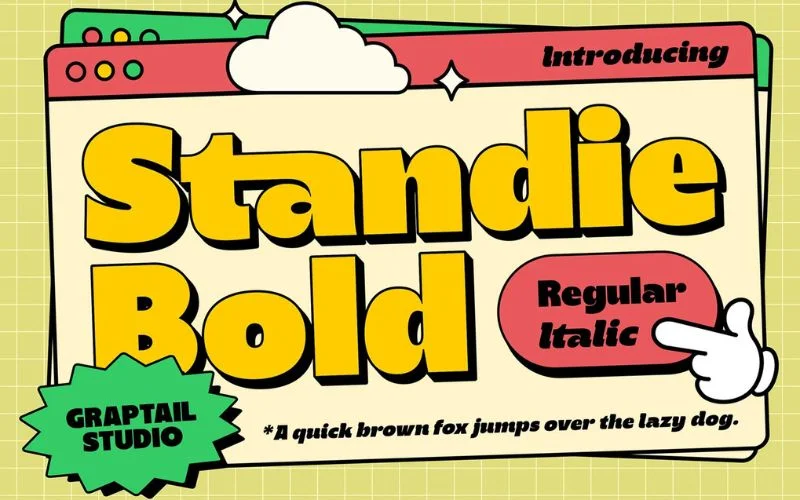
When it comes to 90’s typography, Standie is a top choice. This 90s font features thick, solid letters with a strong visual impact. The blocky, confident look of Standie is reminiscent of the retro typography used in 90s advertisements and movie posters.
Its boldness gives your text a sense of importance, making it ideal for headings and titles that need attention. If you’re looking for a font that blends the classic vibes of the 90s with modern-day versatility, Standie won’t disappoint.
2. Retrio OTF-SVG Color Font Family
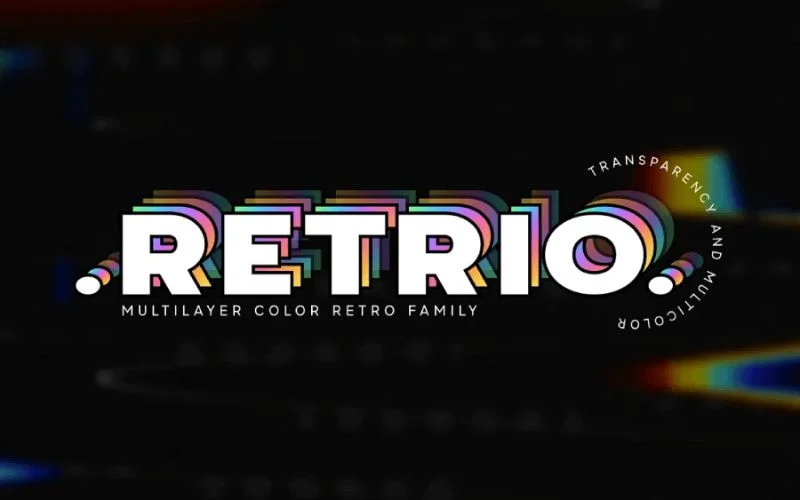
The Retrio OTF-SVG Color Font Family is a colorful homage to the playful, experimental designs of the 90s. Known for its vibrant hues and bold character shapes, this 90s font family is perfect for adding color to your projects.
The font’s multicolored design makes it especially appealing for posters, web banners, and social media graphics where you need to capture attention at first glance. In the 90s, color was a huge part of design, often used loudly and unapologetically. Retrio brings that same energy and enthusiasm to any design.
3. Block Marys: 90s Graffiti Font
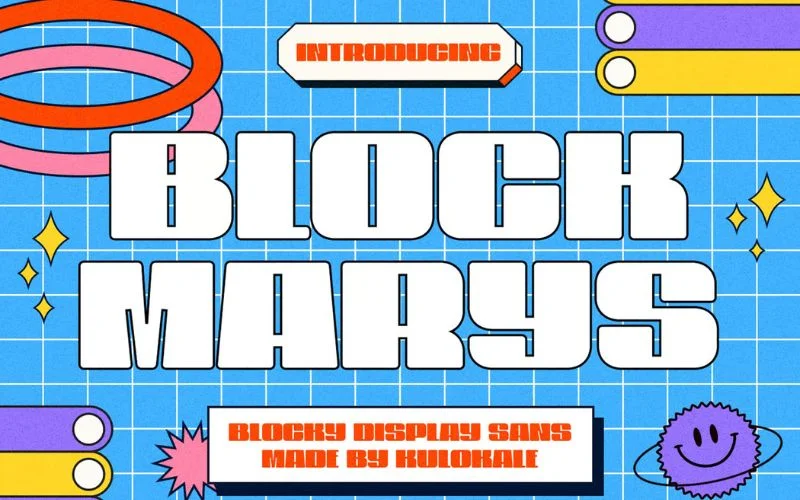
Block Marys is the quintessential bold, blocky typeface that dominated much of 90s urban design. This heavy-set font is perfect for those looking to recreate the graffiti-like, street-inspired typography that was everywhere in that decade.
The sharp, geometric structure of Block Marys makes it excellent for titles, branding, and even logos. It provides a gritty, raw feeling reminiscent of street culture, which became synonymous with 90s fonts.
4. Retro Chimps: 90s Vintage Font
Retro Chimps Vintage brings a sense of fun and nostalgia to any design project. Its rounded letters and playful style evoke the more lighthearted side of 90s fonts. This font is an excellent fit for designs that need a cheerful, vintage vibe, whether you’re working on a flyer, social media post, or packaging design.
Its whimsical look is reminiscent of the hand-drawn type often seen in 90s TV shows, cartoons, and video games. What makes Retro Chimps Vintage special is its versatility. It has just enough retro flair to feel nostalgic, clean, and modern for contemporary use.
5. Bee Dee Groovy
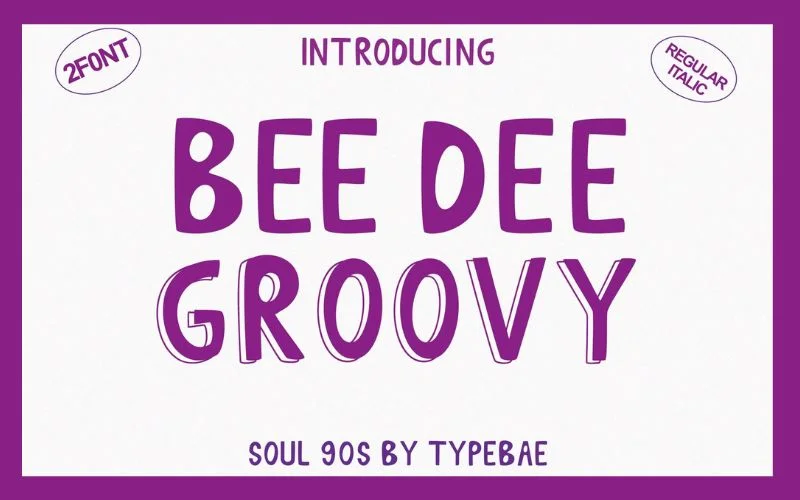
Bee Dee Groovy is a bold, retro-inspired display font that captures the essence of the 80s and 90s. This typeface brings a nostalgic and distinctive flair to various creative projects.
Whether you’re designing business cards, children’s activity books, or anything in between, Bee Dee Groovy infuses your work with a unique, vintage charm that truly stands out.
6. Ashington: 90s Cursive Font
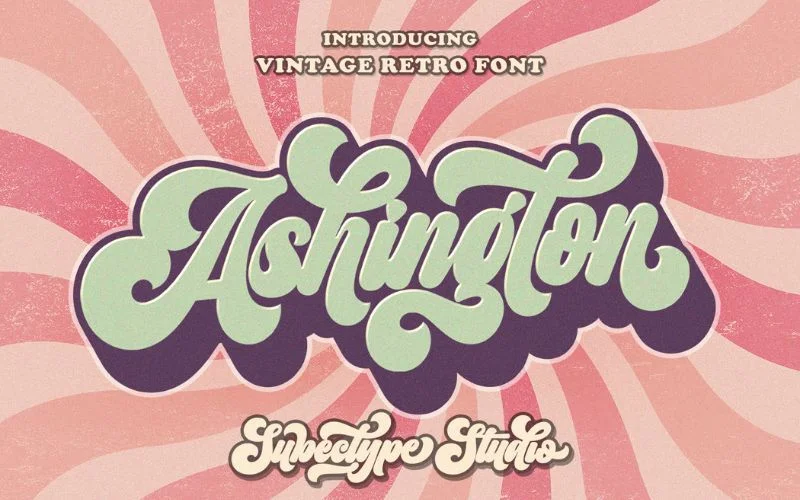
Ashington is the perfect choice for those looking to add an elegant touch to their retro designs. Unlike this list’s bold and blocky 90s fonts, Ashington offers a cursive, flowing style that feels a bit more refined.
However, it still carries the playful and carefree essence that was prominent during the 90s. Its delicate, handwritten style is ideal for creating designs that need a vintage, nostalgic feel but with a softer edge. Ashington blends the best of both worlds, bringing a touch of class to the otherwise bold and edgy world of 90s fonts.
7. Milenia Bold Script: 90s Aesthetic Font
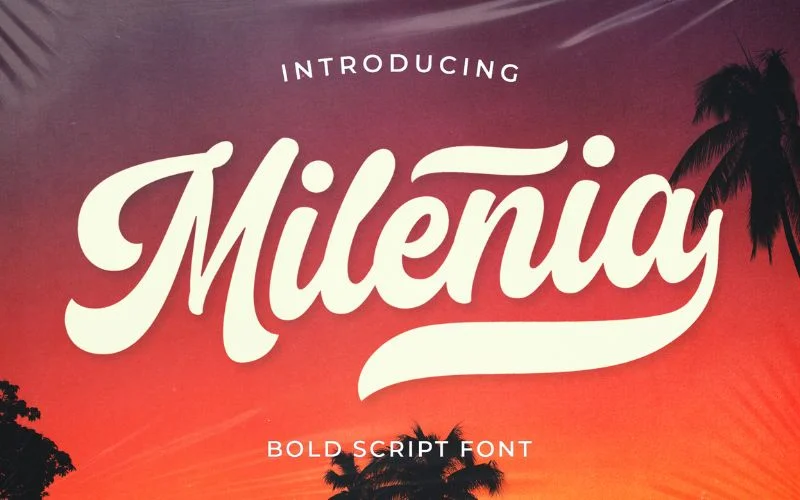
Milenia Bold Script captures the dynamic energy of 90s fonts with strong, flowing strokes. This script font is bold enough to demand attention, yet it has a certain elegance that makes it perfect for various creative applications.
The thick lines and sweeping curves make Milenia ideal for eye-catching designs, such as posters, branding, or packaging. The 90s were full of chunky, oversized fonts, and Milenia Bold Script brings that retro vibe into modern designs without feeling dated. This is an excellent choice for your next project if you’re after a script font that combines nostalgic charm with contemporary appeal.
You might also like: Free Luxury Fonts To Elevate Your Designs
8. Retro Boldy
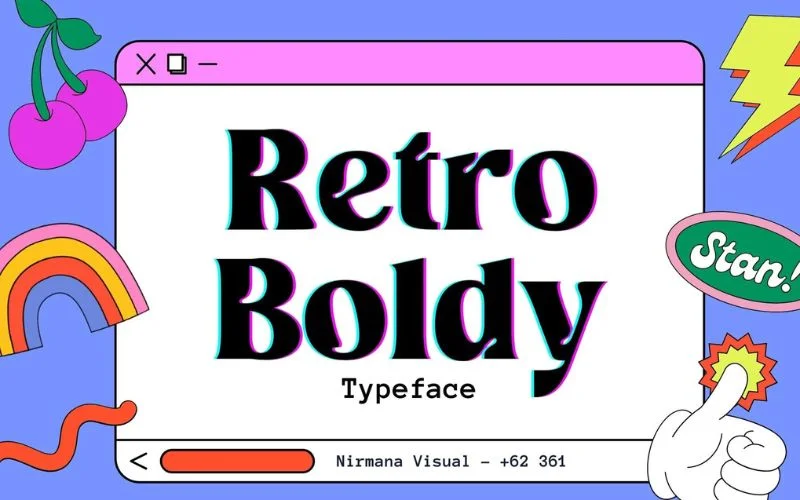
Retro Boldy lives up to its name with its thick, blocky letters that seem to leap off the page. This 90s font takes inspiration from the oversized, impactful typography commonly seen on 90s movie posters, product packaging, and neon signs.
The font’s exaggerated, chunky style makes it a great choice for designs that need to make a statement. Its straightforward, no-nonsense design reflects the bold confidence of 90s fonts, making it an excellent addition to any retro-themed project.
9. East Garage
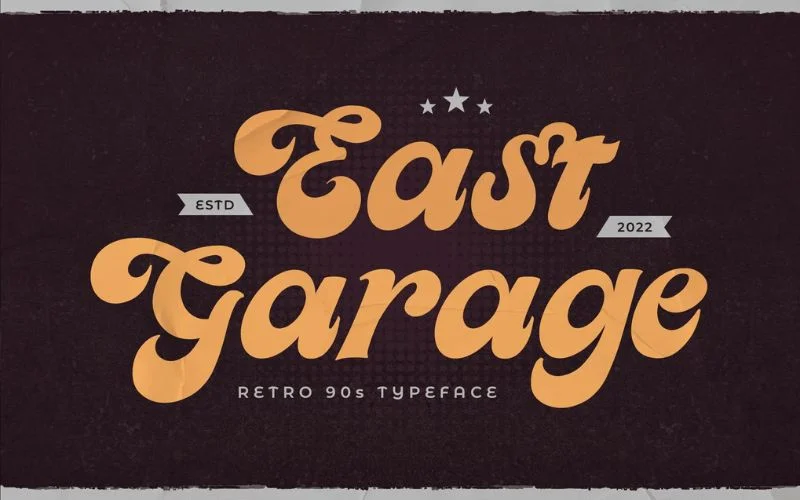
East Garage is the perfect font for those looking to channel the raw, rebellious spirit of the 90s. This gritty, grunge-inspired design typeface, with its rough edges and unpolished look, is inspired by the garage band culture of the era.
The 1990s saw the rise of alternative music and underground art movements, and East Garage perfectly captures that DIY aesthetic. It’s ideal for music-related projects, posters, and apparel that aim to evoke the decade’s rebellious, gritty vibe.
10. Friday Night: 90s Handwriting Font
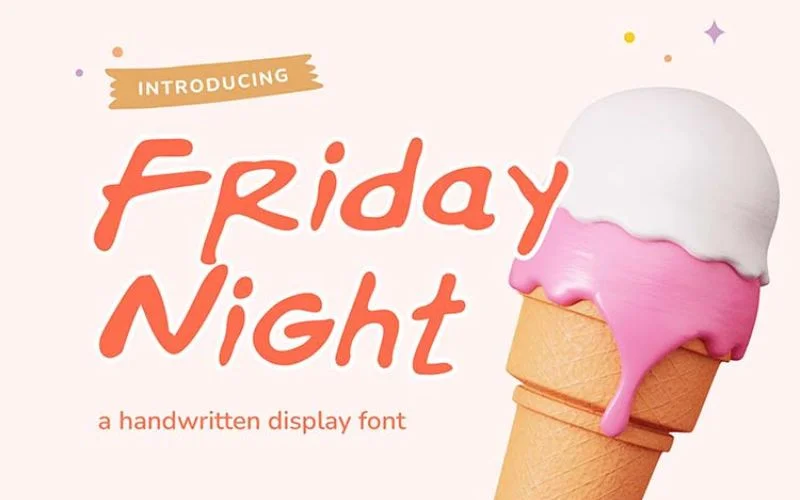
As the name suggests, Friday Night font is laid-back, carefree, and fun. Its handwritten style makes it feel personal and intimate, bringing a casual touch to any design.
The playful, handwritten look is reminiscent of the designs found on 90s sitcom intros or handwritten notes passed between friends during that time. Friday Night captures the youthful, carefree energy of the 90s, making it perfect for personal projects or any design that needs a human touch.
You might also like: How To Use Fonts Efficiently In Web Design
11. Lico
Lico embodies the futuristic yet nostalgic feel that many 90s fonts aspired to achieve. It’s sleek and minimalist, with just enough retro flair to evoke memories of the 90s obsession with technology and the future.
This font is a great option for tech-related designs, websites, or branding that want to tap into that retro-futuristic vibe. The 90s were a time of exciting technological advances, and Lico captures that forward-thinking spirit with its clean lines and futuristic shapes.
12. Funk Gibson
Funk Gibson is all about curves, exaggerated shapes, and playful style. This 90s font brings a funky, energetic vibe to any project. It’s perfect for upbeat designs, from festival posters to album covers.
Funk Gibson’s funky, almost cartoonish style recalls the vibrant, experimental typography of the 90s, where designers pushed the boundaries of what fonts could look like.
13. The Golden Girdle
The Golden Girdle font blends the retro and futuristic styles popular in 90s fonts. Its sharp, angular lines give off a futuristic vibe, while its bold, blocky letters remain grounded in the iconic typography of the 90s. This font works great for sci-fi designs, tech branding, or anything that needs a futuristic yet nostalgic touch.
In the 1990s, fonts often played with the idea of what the future would look like, and Golden Girdle captures that perfectly. It’s ideal for projects that hint at the past and the future while maintaining a bold, eye-catching design.
You might also like: Best Font Combinations To Elevate Your Typography
14. Mister Firley
Mister Firley brings a touch of humor and whimsy to any design project. This playful, hand-drawn, and quirky font from the 1990s is ideal for lighthearted and fun projects.
Whether you’re working on a children’s book, a poster for a fun event, or branding for a casual, creative business, Mister Firley will add a unique touch of personality.
15. Tumb Ink Trap: 90s Pop Font
Tumb Ink Trap is a gritty, edgy font that feels right at home in 90s grunge and underground art. With its jagged edges and raw design, this font is perfect for designs that need to convey a sense of rebellion and attitude.
The 90s were a time of alternative music and grunge culture and Tumb Ink Trap channels that energy with its rough, handmade look. It’s a great option for band posters, concert flyers, or any project that wants to evoke the rebellious spirit of the 90s.
You might also like: Best Tattoo Fonts To Make Your Tattoo Stand Out
16. Arcade Classic
There’s no better way to bring back the nostalgic feel of 90s video games than with Arcade Classic. This pixelated font is inspired by the typography seen in classic arcade games, and it’s perfect for retro gaming designs, app logos, or anything tech-related.
The blocky, pixelated style of Arcade Classic immediately takes viewers back to a time when video games were still in their early days, making it a fun, playful font to work with.
17. Strippy
Strippy is a quirky and unique font that reflects the playful, experimental spirit of 90s design. With its uneven lines and funky shapes, this 90s font is perfect for designs that want to stand out and make a statement. Strippy is great for logos, posters, or any project that needs a bit of personality.
The 90s were all about pushing the boundaries of design, and Strippy does just that with its unconventional style. Whether you’re working on a creative brand, a fun event, or a social media campaign, this font will help your designs feel unique and memorable
18. Break Snooze: Fun 90s Font
Break Snooze is the perfect choice for a more relaxed, laid-back vibe. This 90s font has a casual, handwritten feel that makes it ideal for lifestyle brands, social media posts, or anything that wants to feel approachable and down-to-earth.
It’s great for projects that evoke a sense of calm and simplicity while maintaining a retro feel. Whether you’re designing for print or digital, Break Snooze will bring a sense of chill, nostalgic vibes to your work.
You might also like: Beautiful Fonts For Your Aesthetic Designs
19. Wasted Youth
Wasted Youth is a gritty, rebellious font that embodies the raw energy of the 90s counterculture. Its jagged, uneven edges give it a rough, hand-drawn look, perfect for designs that want to capture a sense of defiance and attitude.
Whether you’re working on a band poster, streetwear branding, or zine layouts, Wasted Youth adds that rebellious edge that speaks to the underground spirit of the 90s. This typeface is perfect for grunge-inspired projects or anything that aims to evoke the DIY, punk aesthetic of the era.
20. Ballore Grayson
Ballore Grayson is a sleek and elegant typeface that combines the timeless sophistication of serif fonts with a modern, 90s-inspired twist. Its clean, sharp lines give it a polished look, making it ideal for editorial design, luxury branding, and high-end packaging. While it exudes a sense of refinement, Ballore Grayson still carries a subtle retro charm that adds character to any project.
Final Words
Whether you’re designing a logo, creating social media posts, or just experimenting with typography, these iconic 90s fonts will bring that unmistakable retro style to your designs. Embrace the nostalgia and get creative with these standout fonts!